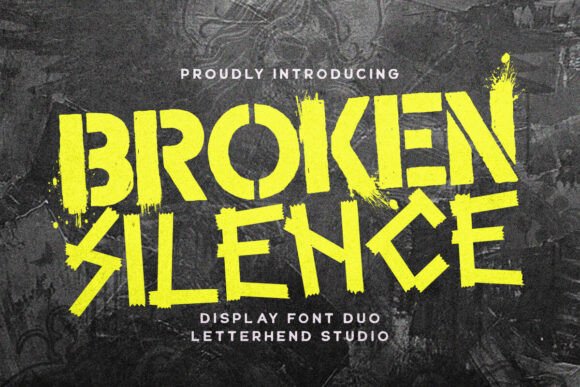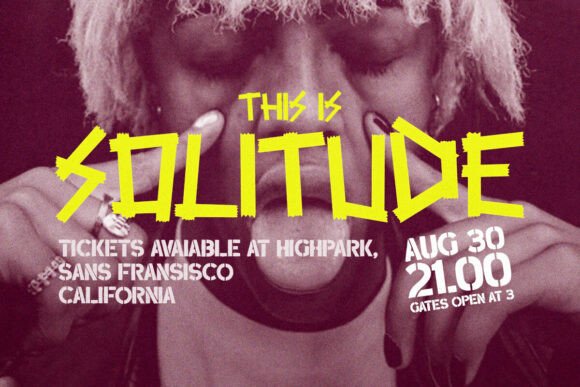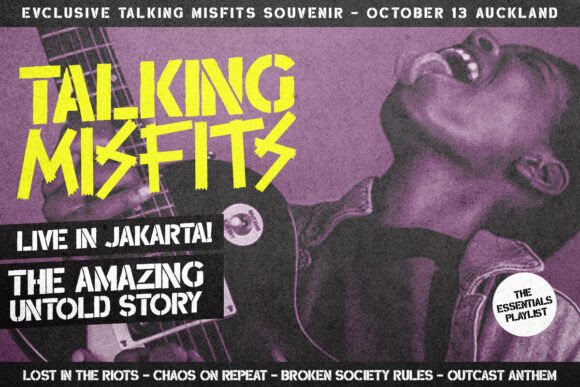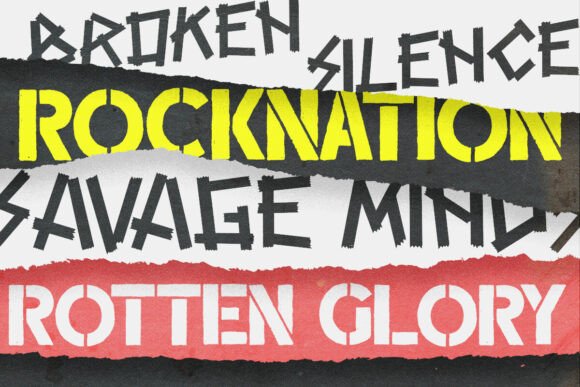
Broken Silence Font: A Bold Display Font for Urban Branding & Logos
About the Broken Silence Font
We are excited to introduce Broken Silence Font, a must-have typeface for any serious designer. Meet Broken Silence—a bold, street-style display font that mixes raw stencil cuts with freestyle urban vibes. This font duo is perfect for street-themed designs, street wear branding, or even the title of a game tittle. It’s made to stand out on logos, headlines, signage, and more, while also looking sharp on apparel, book covers, labels, packaging, and all kinds of advertising.
Broken Silence excels in large-scale applications like headlines, posters, and branding where its bold, raw energy commands attention. It’s ideal for projects with a rebellious, urban aesthetic—think streetwear brands, music promotions, or edgy graphic novels. Avoid using it for body text or UI elements; its strong character is best suited for impactful statements, not extended readability.
Pairing Broken Silence effectively requires considering its high contrast and bold forms. A clean sans-serif like Open Sans or a geometric sans-serif like Futura would provide a strong contrast and create visual balance. For a softer approach, a slightly rounded sans-serif such as Lato could work well.
Its core personality is undeniably bold and rebellious, reflecting a street-smart, confident attitude. This makes it a powerful choice for brands seeking to project an image of raw energy and uncompromising style.